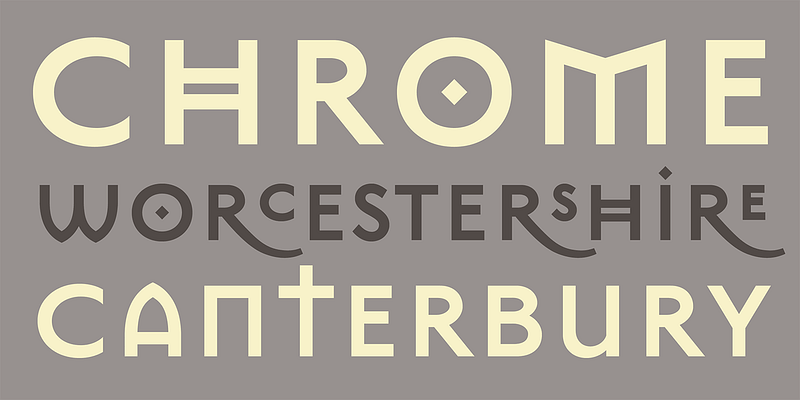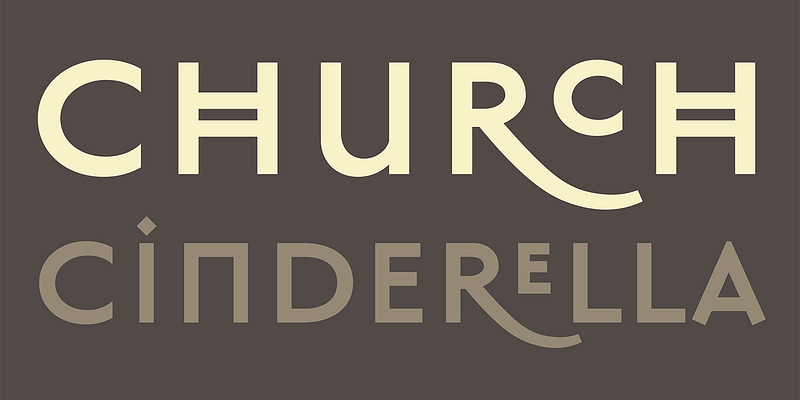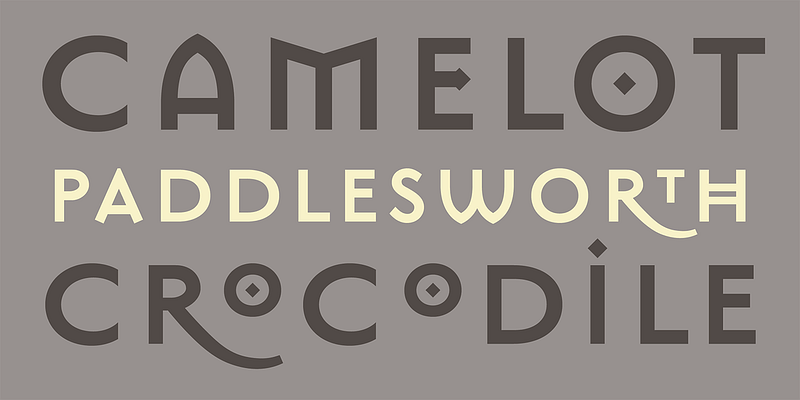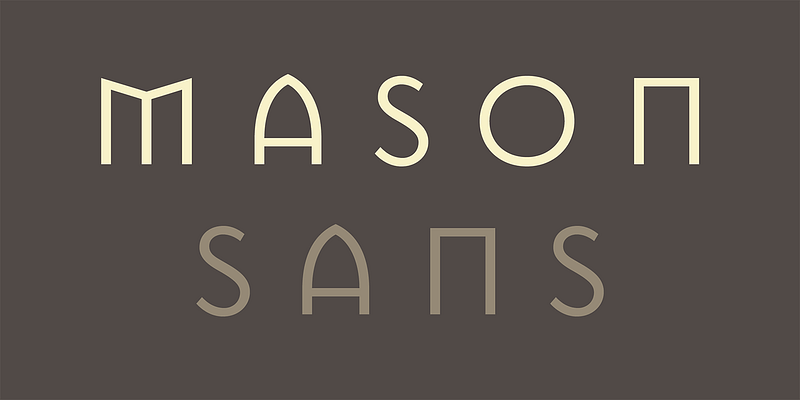
Mason comes in both a serif and sans serif version, and each package comes with three variants: Regular, Alternate, and Super, each in two weights. Together, these fonts contain several variants for each alphabetic character, each in a capital, small cap, and super script cap version.
In its design, Barnbrook was influenced by nineteenth-century Russian letter forms, Greek architecture, and Renaissance Bibles. The font also displays many references to popular culture, politics, and typographic history. Mason’s postmodern attitude is undeniable and, like Jeffery Keedy’s Keedy Sans, Mason emerged during the explosion of digital typefaces in the early 1990s, both products of the technological and cultural influences of the time.
Barnbrook originally called this typeface Manson (after American serial killer Charles Manson) “to express extreme opposite emotions of love and hate, beauty and ugliness.” After releasing the font, Emigre came under heavy scrutiny for glorifying a murderer, and decided to change the name to Mason, as the letter forms also evoke stonecutters’ work, Freemasons’ symbology, and pagan iconography.
In 2011 Mason Sans was one of 23 digital typefaces included in the permanent architecture and design collection of the Museum of Modern Art in New York.